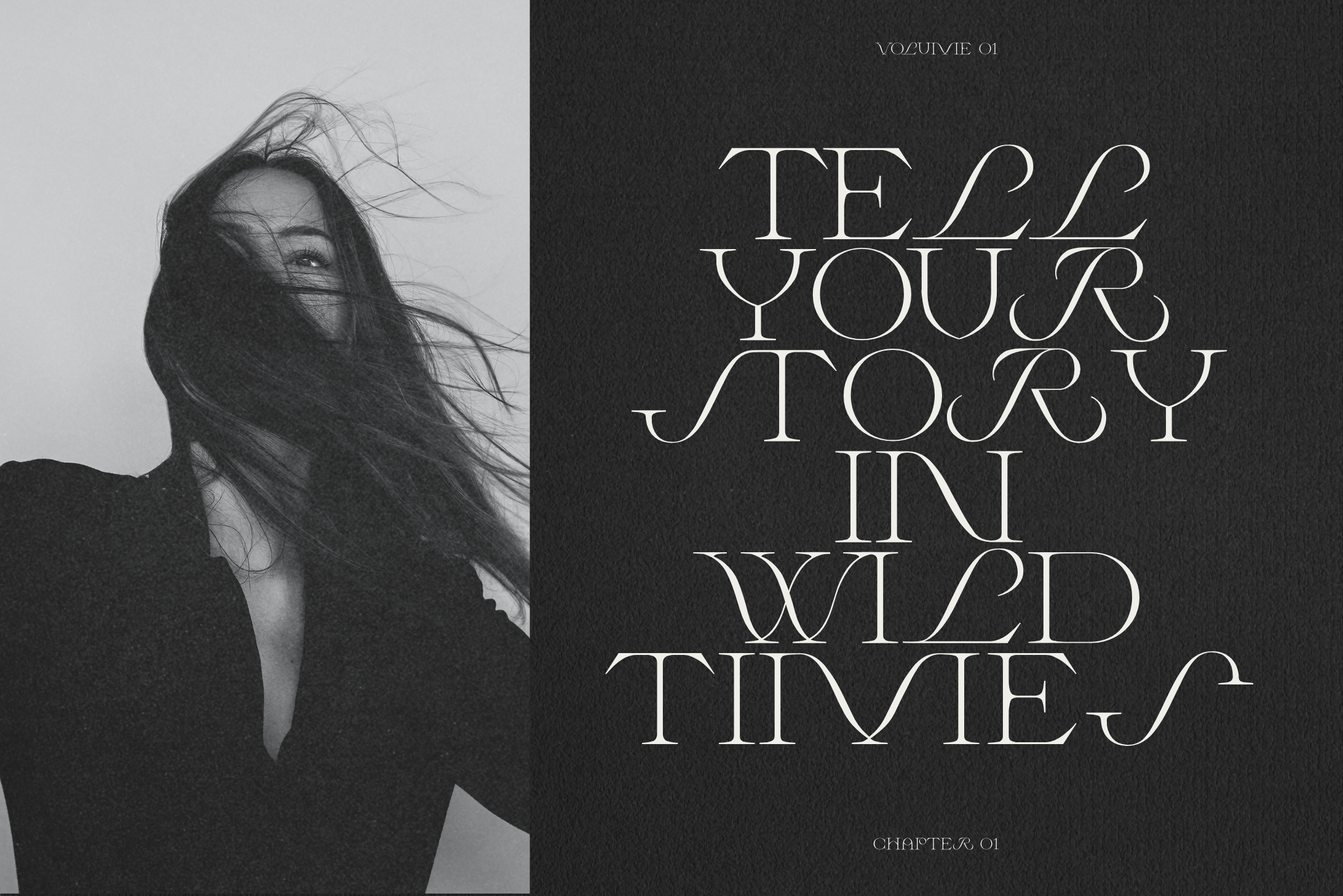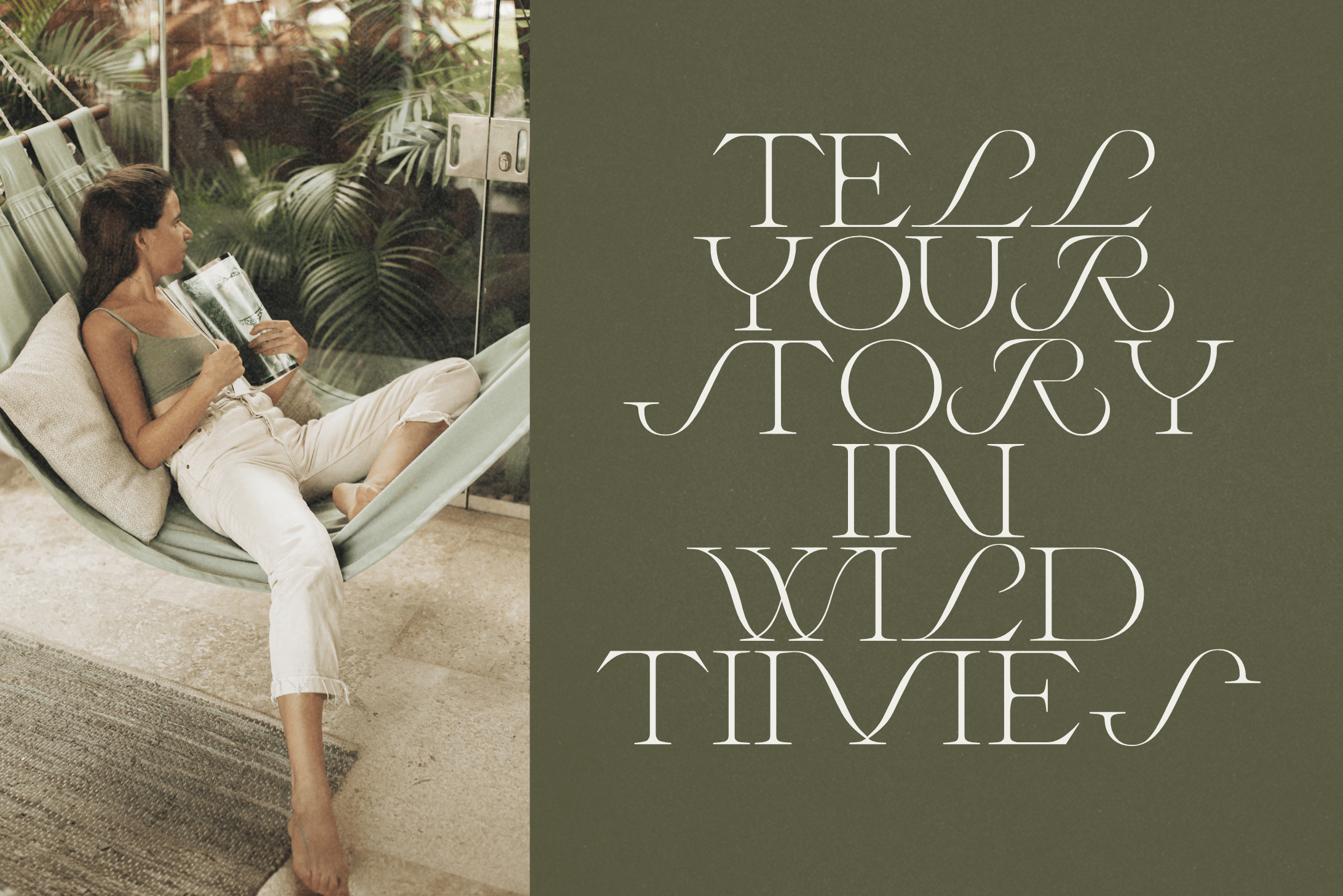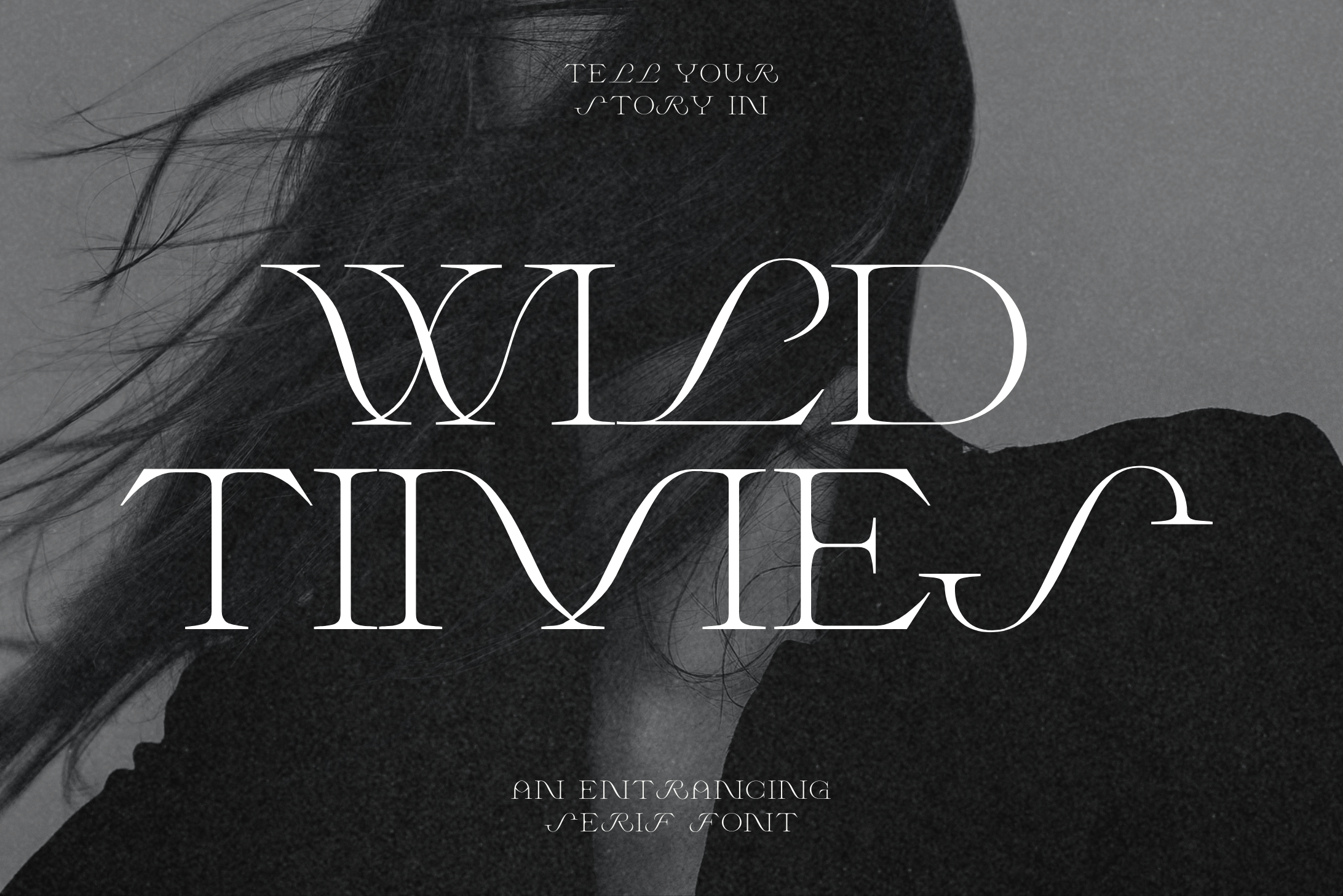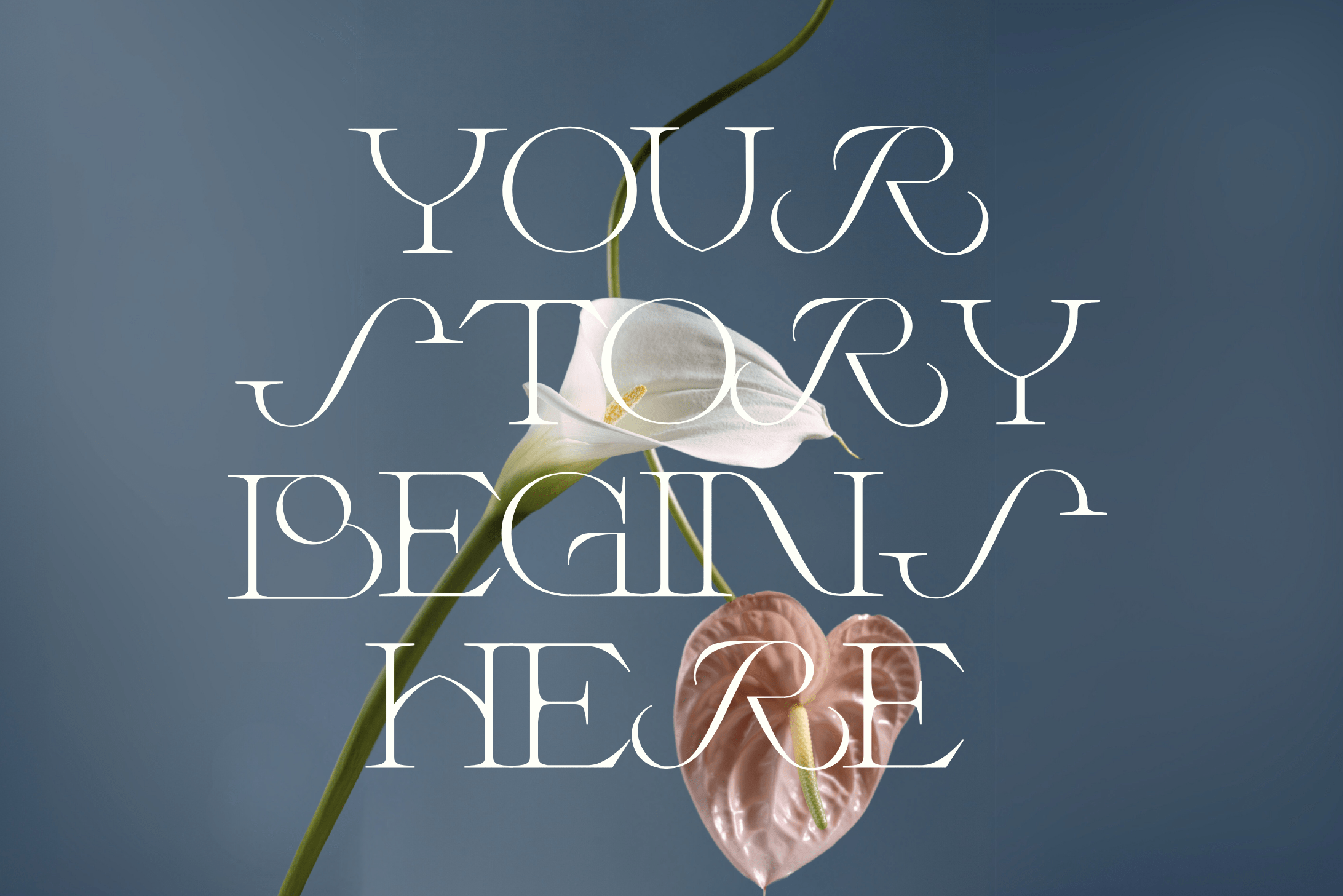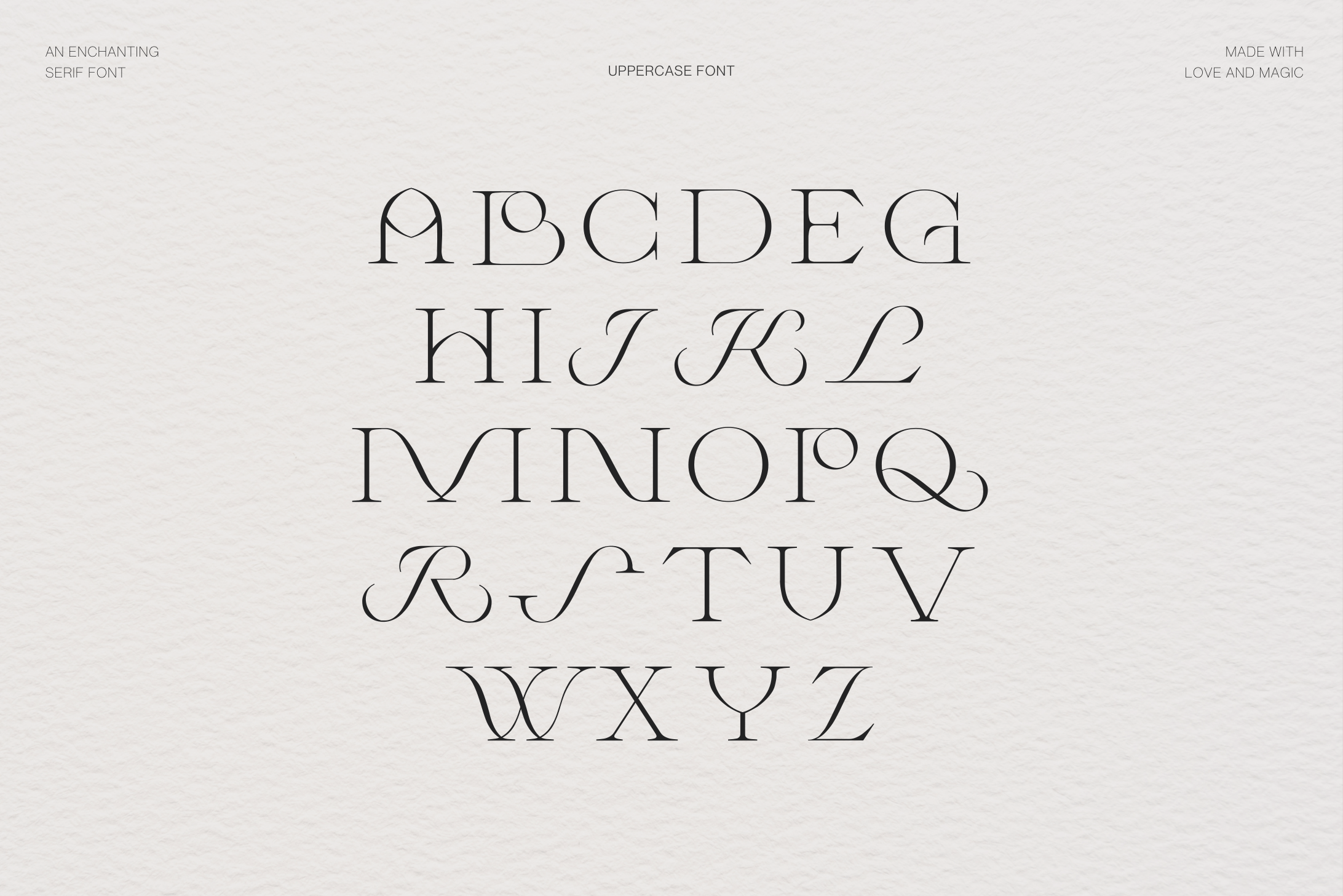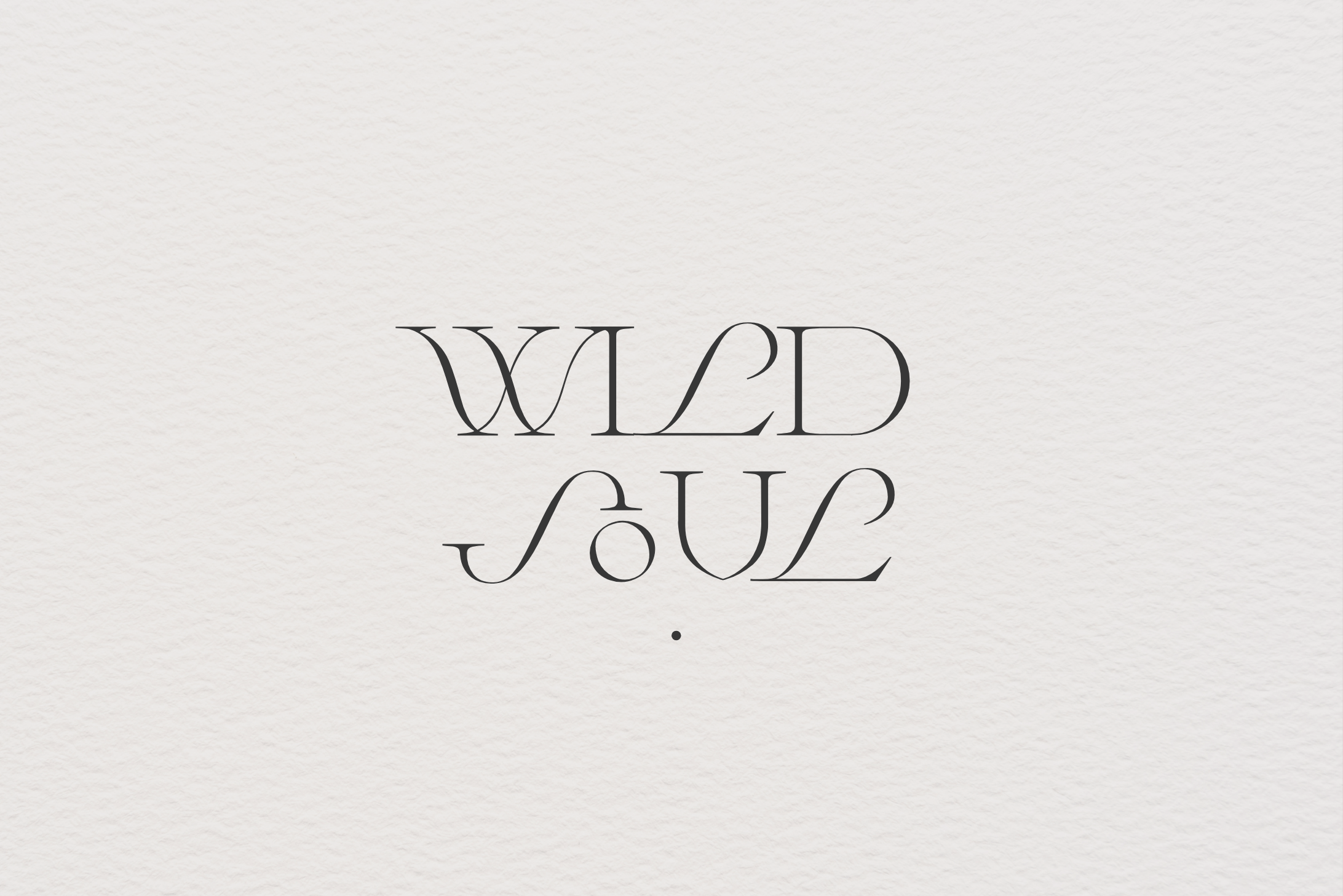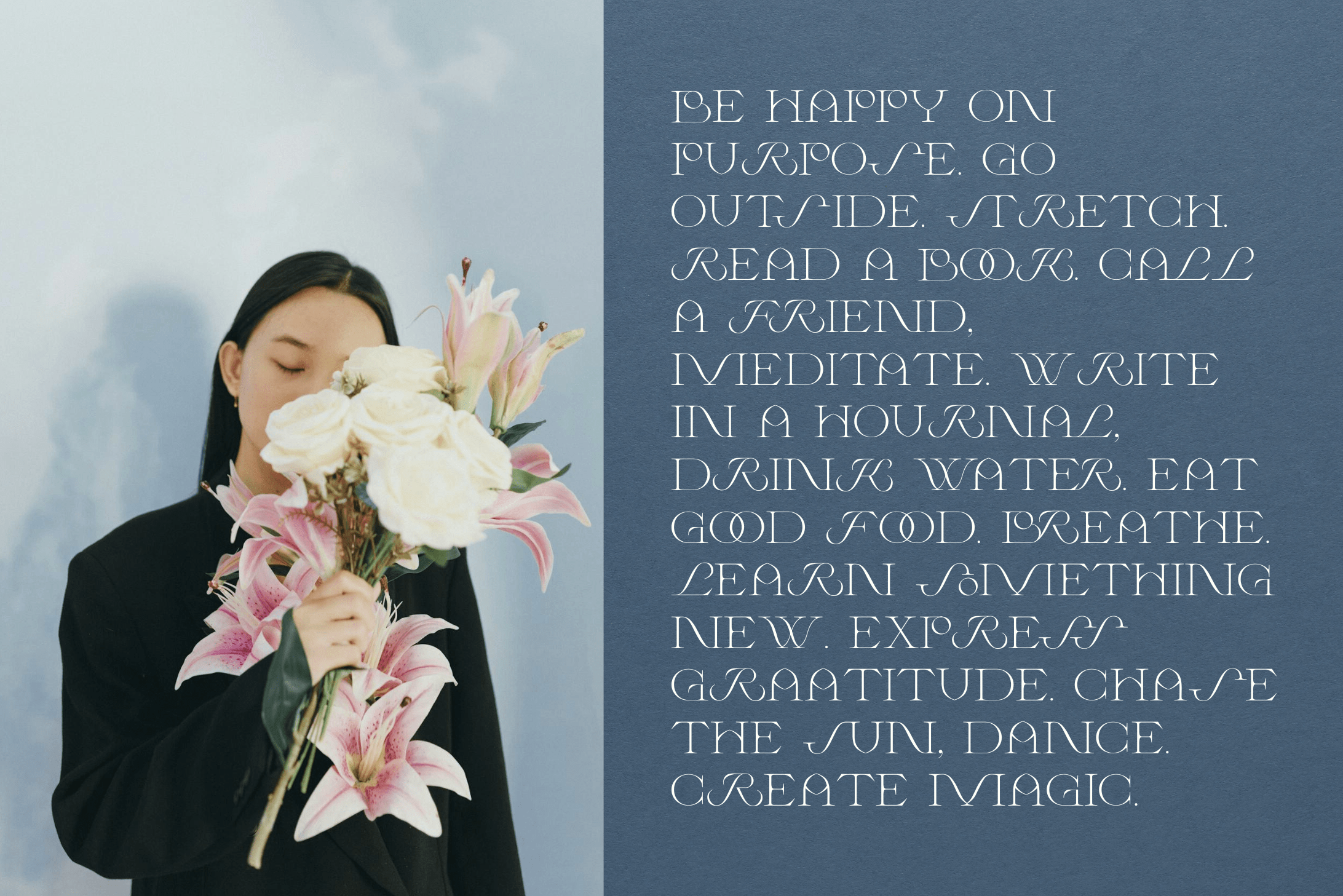
Meet Wild Times, a captivating typeface that bridges the gap between classic elegance and modern mystique. This versatile font with flowing letters that dance between traditional and mystical styles, creating a perfect balance between sophistication and whimsy. Write your story in Wild Times.